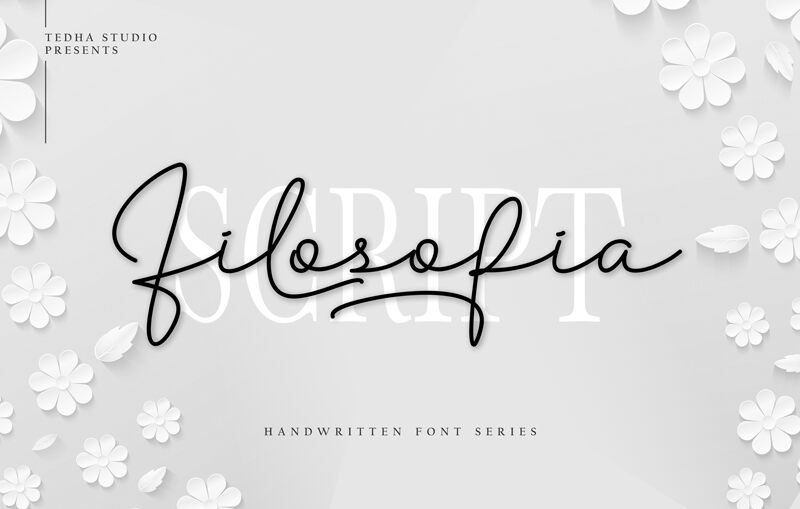
Filosofia Script
Filosofia Script font by Roidan Wardyasa is a light handwritten font with a smooth flow and elegant curves. It showcases a graceful movement and a contemporary feel with an overall handwritten aesthetic. This free handwriting font brings casual sophistication to projects of all scales.
Use Filosofia Script in wedding invitations, thank you cards, quotes, greeting cards, or logos. Stylish business cards can use it for branding purposes while wrapping up the design with that special touch. Other uses include typography book covers, event posters, magazine covers…